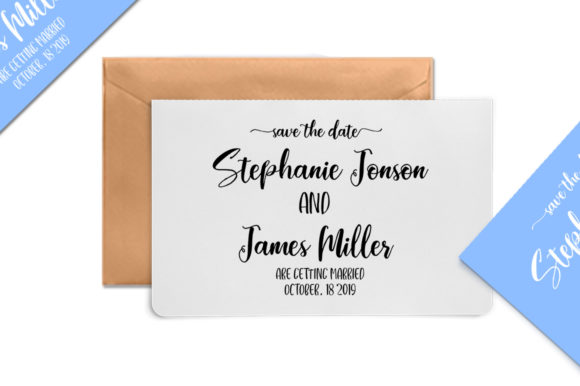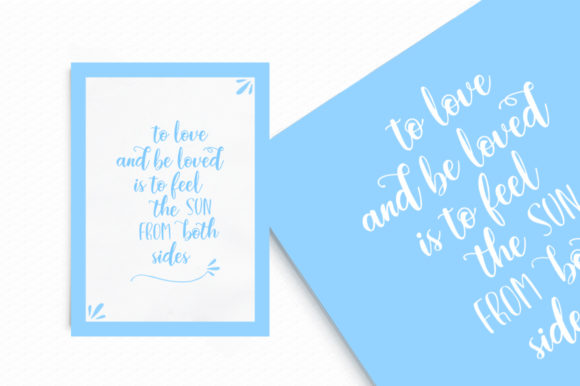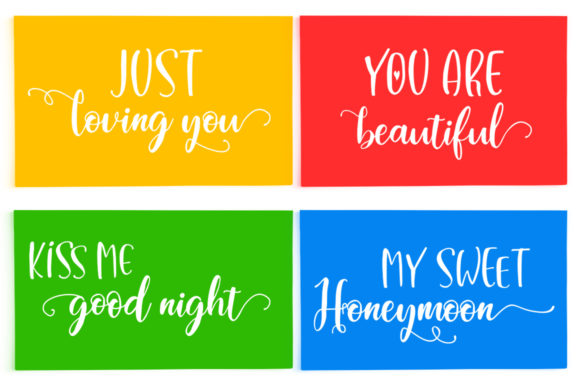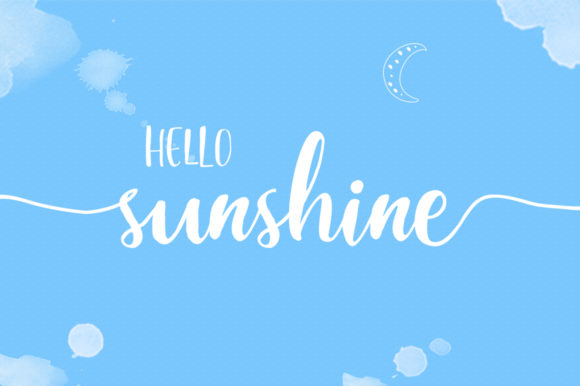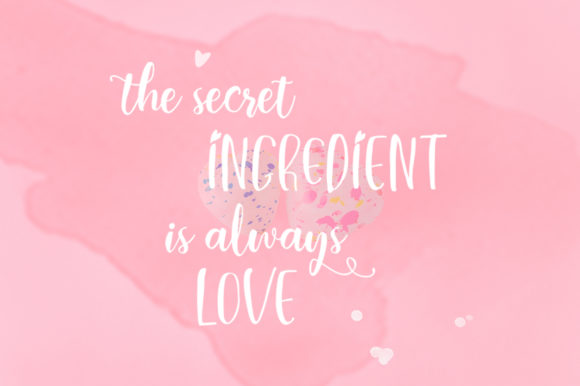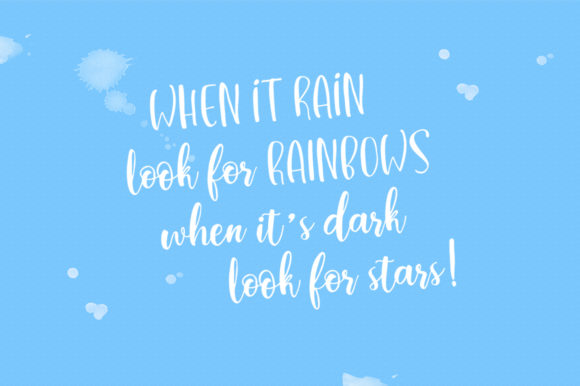
Fabullous Script Font
About Fabullous Script Font
As the name suggests, Fabullous is and incredibly fabulous handwritten font with a bold twist. Get inspired by its unique flavor, and add a touch of authenticity to any design project.